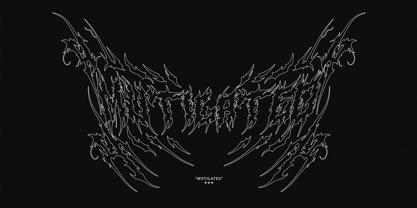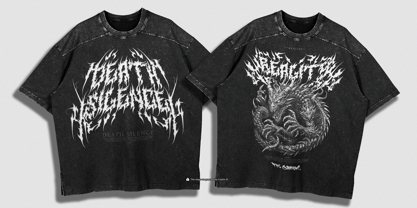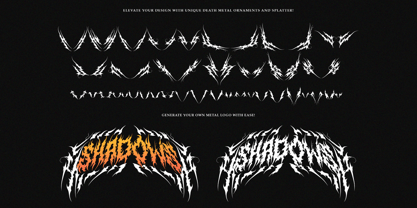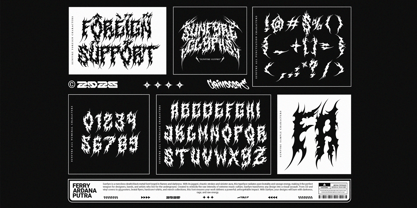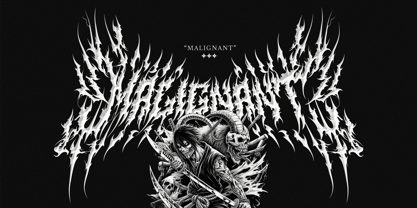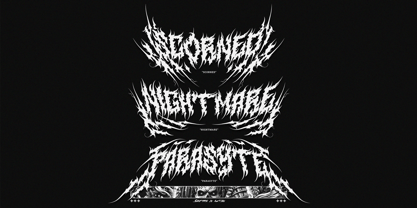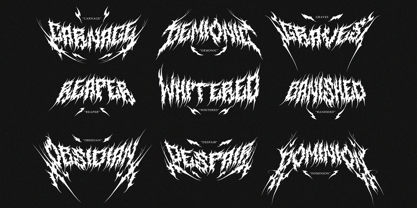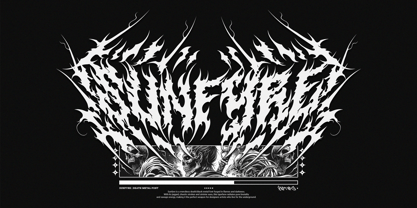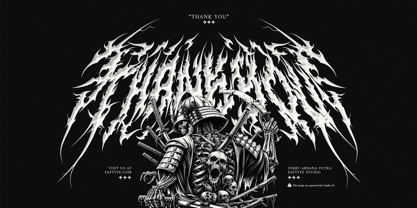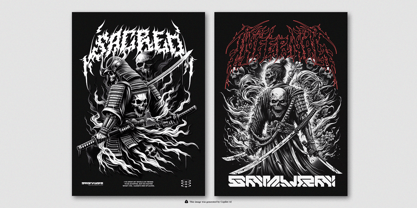
Sunfyre Black
Sunfyre Black Metal Font – Brutal Typeface for Extreme Designs
Why Choose Sunfyre Black Metal Font?
Sunfyre Black Metal Font is a savage typeface crafted for underground and extreme artwork. With razor-sharp strokes, chaotic textures, and a raw visual atmosphere, this font captures the spirit of true brutality. It is designed for bands, labels, and creators who want their designs to stand out in the darkest corners of the scene.
Every curve and jagged edge is built to reflect the intensity of black and death metal culture. This makes Sunfyre not just a font, but also a weapon of expression for those who value aggression, authenticity, and rebellion in design.
Design Uses for This Brutal Metal Typeface
This extreme typeface is perfect for a variety of creative projects. Album covers, vinyl sleeves, and band logos gain instant impact when designed with this brutal metal font. Festival flyers, horror movie posters, and hardcore t-shirt graphics become bold statements of raw energy.
Beyond music, the Sunfyre font also fits gaming visuals, dark fantasy artwork, and tattoo-inspired branding. Its chaotic yet readable style ensures that your words turn into unforgettable symbols. Whether you’re designing for merchandise, streetwear, or horror projects, this black metal typeface delivers unmatched power.
Sunfyre Features
• Full set of Uppercase
• Numbers and Punctuation
• Multilingual Language Support
• PUA Encoded Characters
• OpenType Features
• +364 Total Glyphs
• +127 Death Metal Ornaments included